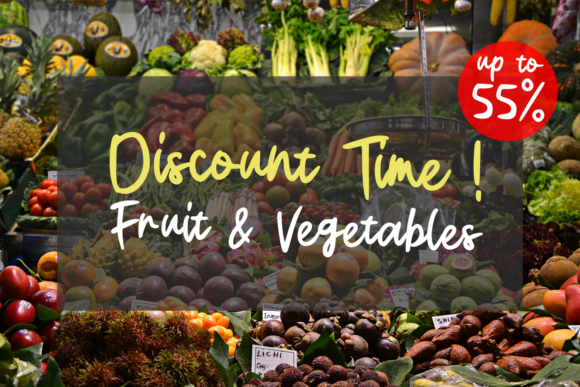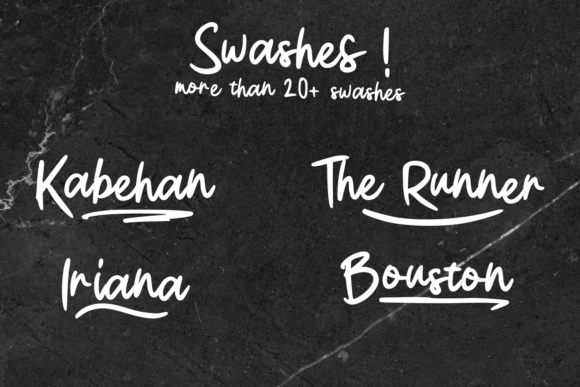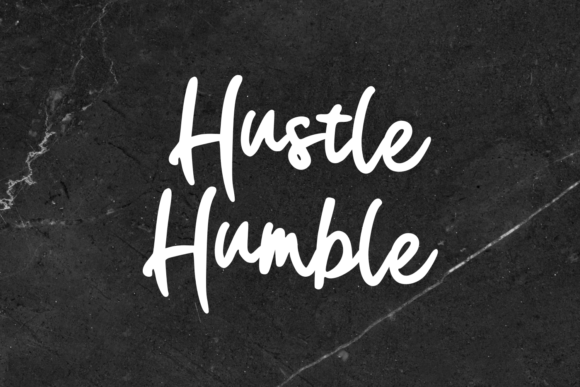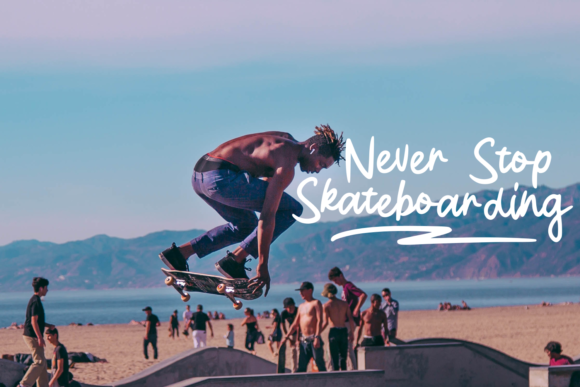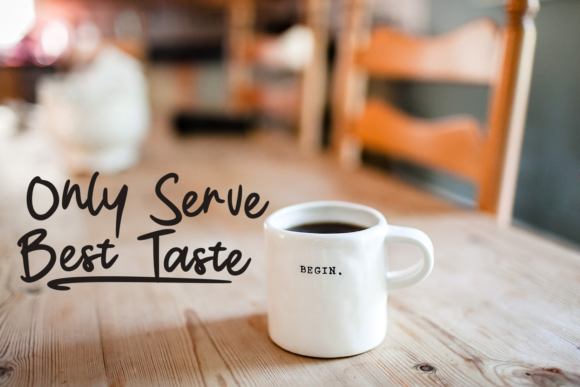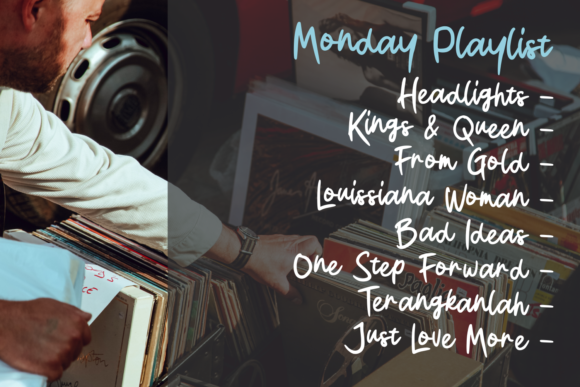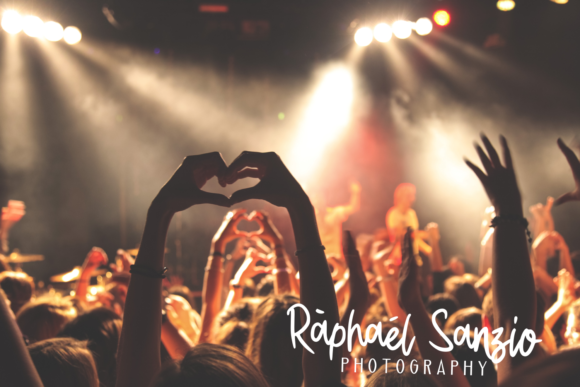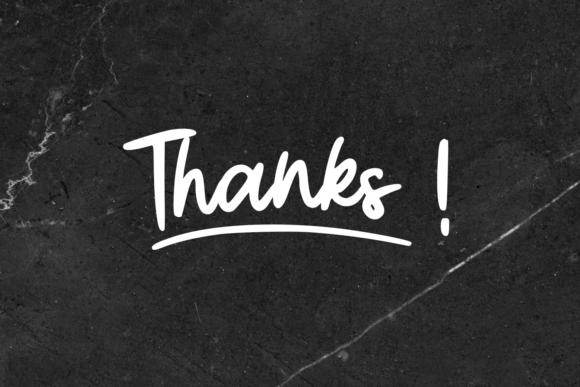
Waltskul Font
About Waltskul Font
Waltskul is a fun and bold handwritten font that will effortlessly add a unique, personal twist to any creative project!